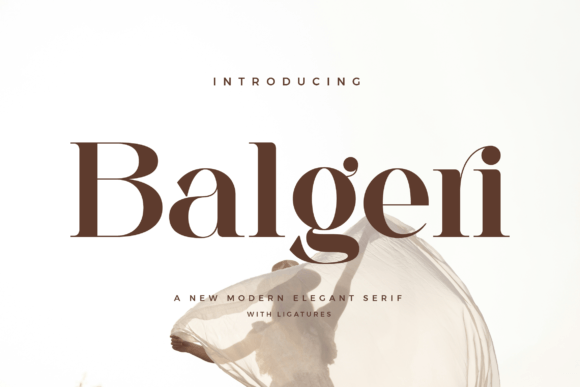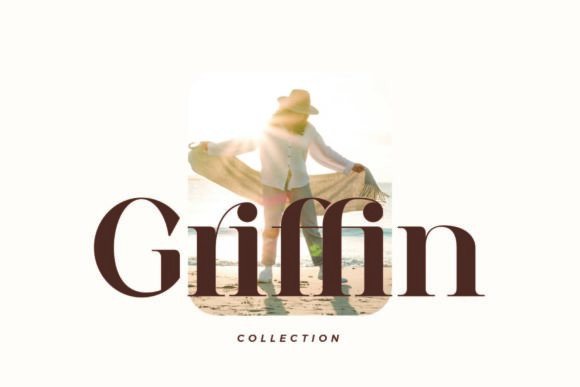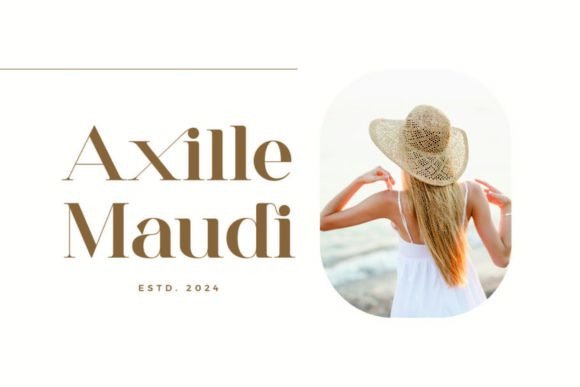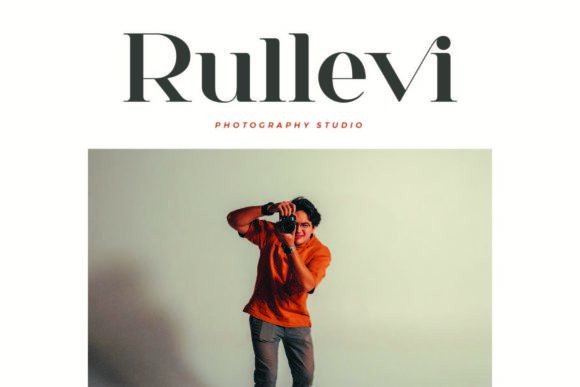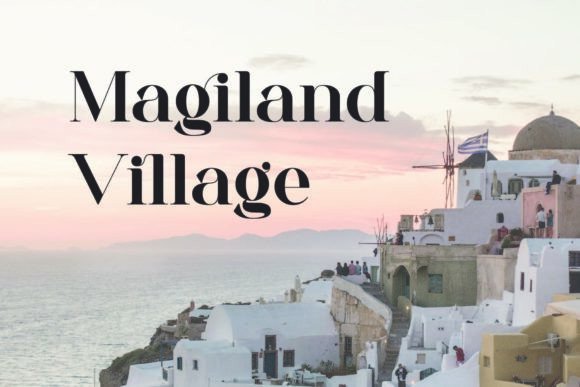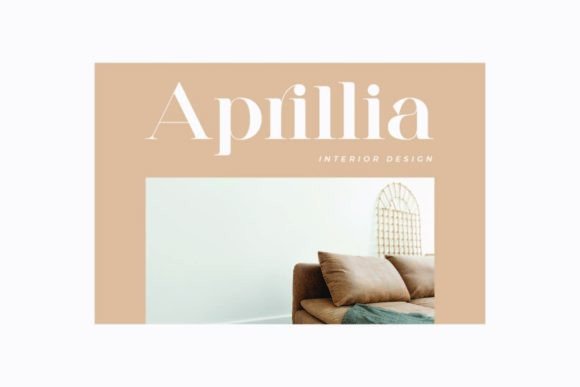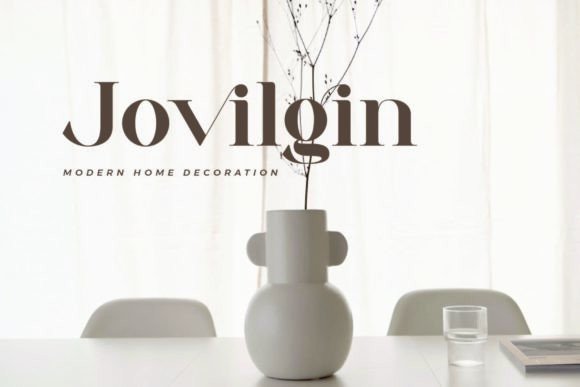
Where Elegance Meets Sophistication: The Balgeri Font
As designers, we’ve all been there – staring at a blank page, trying to bring a brand or project to life. The words won’t flow, the ideas won’t come, and the cursor blinks tauntingly on the screen. But then, it happens – a spark of inspiration strikes, and the creative juices start to flow. For me, it was the discovery of the Balgeri Font, a stylish serif font that perfectly captures the essence of classic elegance with modern sophistication.
The Balgeri Font is more than just a font – it’s a statement piece that elevates any project to new heights. Its refined serifs and well-proportioned letterforms make it a designer’s dream come true. Whether you’re working on a branding project, an editorial piece, or a luxury design, the Balgeri Font is the perfect choice to bring a touch of timeless beauty and class to your work.
Balgeri Font Key Features
- Unique Characteristics: Distinctive, hand-crafted design with a mix of modern and traditional elements, featuring a unique blend of geometric and organic shapes
Design Review: Balgeri Font
Overall, the Balgeri Font has a lot going for it, but also some limitations that might deter designers from using it in certain projects. ✨
- Unique aesthetic: The Balgeri Font has a distinctive, hand-drawn feel that can add a touch of elegance to any design. ✨
- Customizable: The font comes in a range of styles and weights, allowing designers to experiment with different looks and feels. ✨
- Good legibility: Despite its decorative appearance, the Balgeri Font is surprisingly easy to read, making it suitable for body text as well as headings. ✨
- Limited language support: The Balgeri Font may not support certain languages or character sets, which can limit its use in multilingual projects. ⚠️
- Not suitable for small text: The font’s decorative nature can make it difficult to read in small sizes, which may limit its use in certain contexts. ⚠️
In conclusion, the Balgeri Font is a beautiful, unique font that can add a touch of sophistication to any design. While it has some limitations, it’s still a great choice for designers who want to add some visual interest to their projects. Just be sure to test it thoroughly and consider its limitations before using it in production.
The Balgeri Font is ideal for creating modern and elegant designs. Some common use cases include:
- Business cards and brochures
- Marketing materials and social media graphics
For the best results, use the Balgeri Font in conjunction with other modern and minimalist design elements.
Alternatives to Balgeri Font
The Balgeri Font is a sans-serif font known for its modern and minimalist design. However, there are other fonts that can serve as alternatives, each with their own unique characteristics and uses.
Open Sans is a clean and highly legible font, making it suitable for digital interfaces, body text, and other applications where readability is crucial. It is a popular choice among designers due to its versatility and adaptability across various screen sizes and devices.
Comparison to Balgeri Font: Open Sans is more rounded and has a softer feel compared to Balgeri Font’s sharper edges. While Balgeri Font is ideal for modern and minimalist designs, Open Sans is better suited for a wider range of applications, including digital interfaces and publications.
Lato is a sans-serif font with a friendly and approachable feel, making it suitable for branding, advertising, and other applications where a warm and inviting tone is desired. It is also highly legible, making it suitable for body text and digital interfaces.